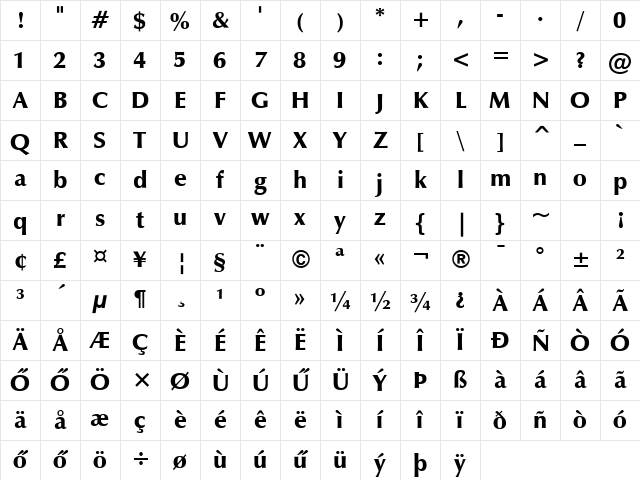
Zapf-Humanist601Ultra HU Normal
Design Context for Zapf-Humanist601Ultra HU
Zapf-Humanist601Ultra HU is a composed and adaptable typeface that performs quietly and consistently across a wide range of design contexts.